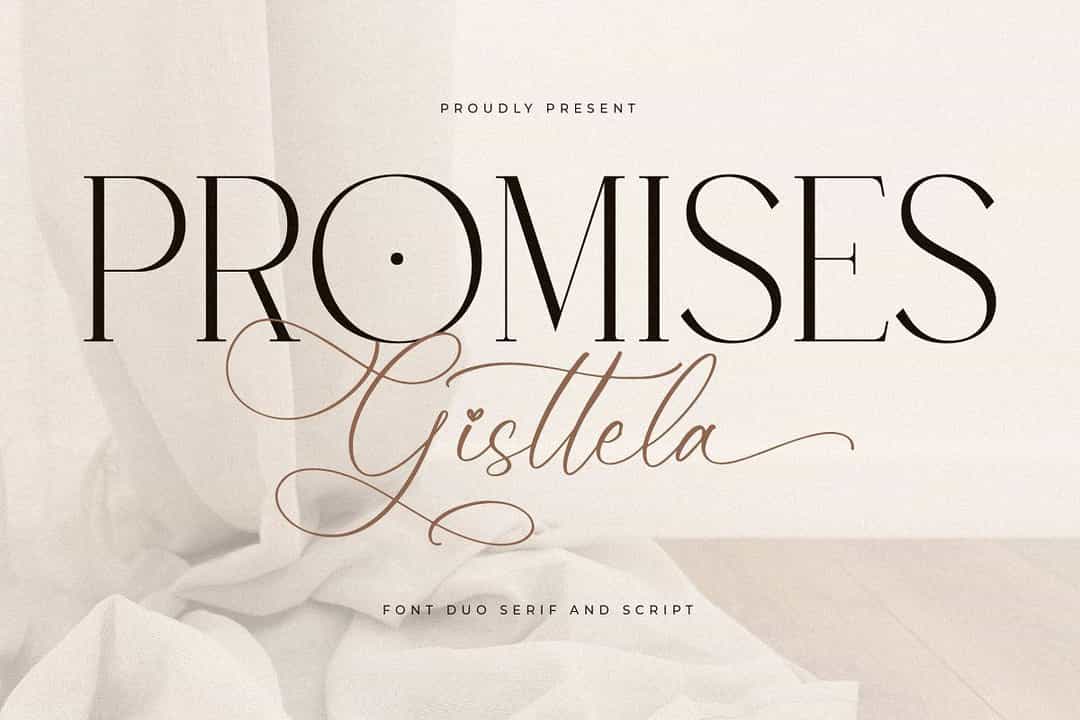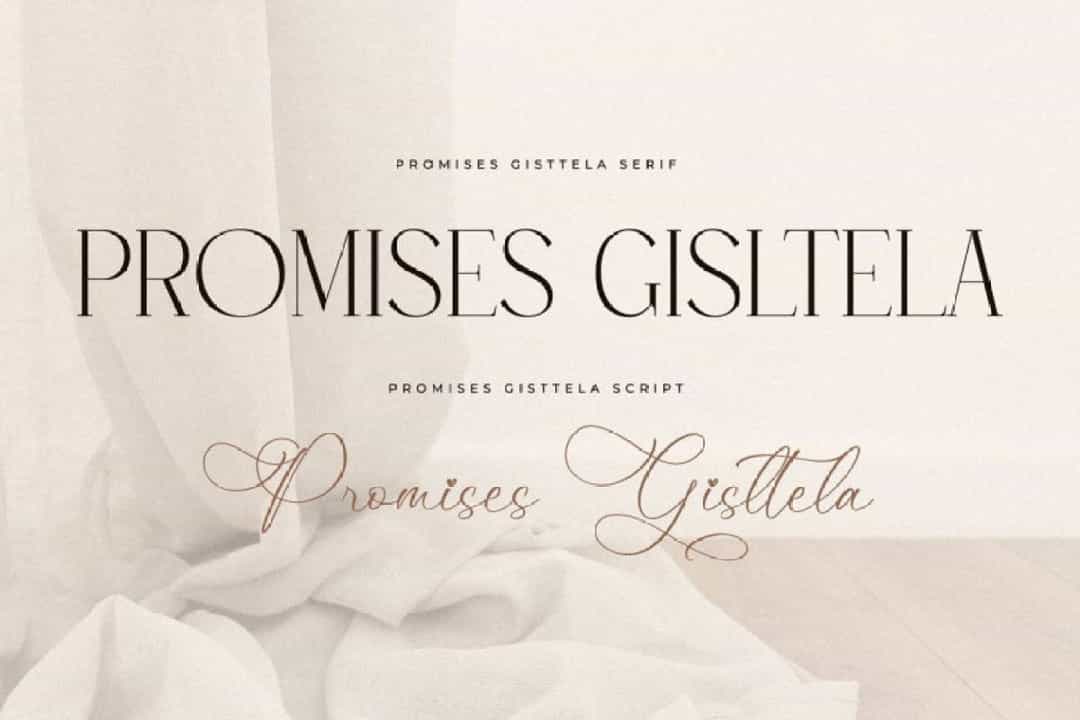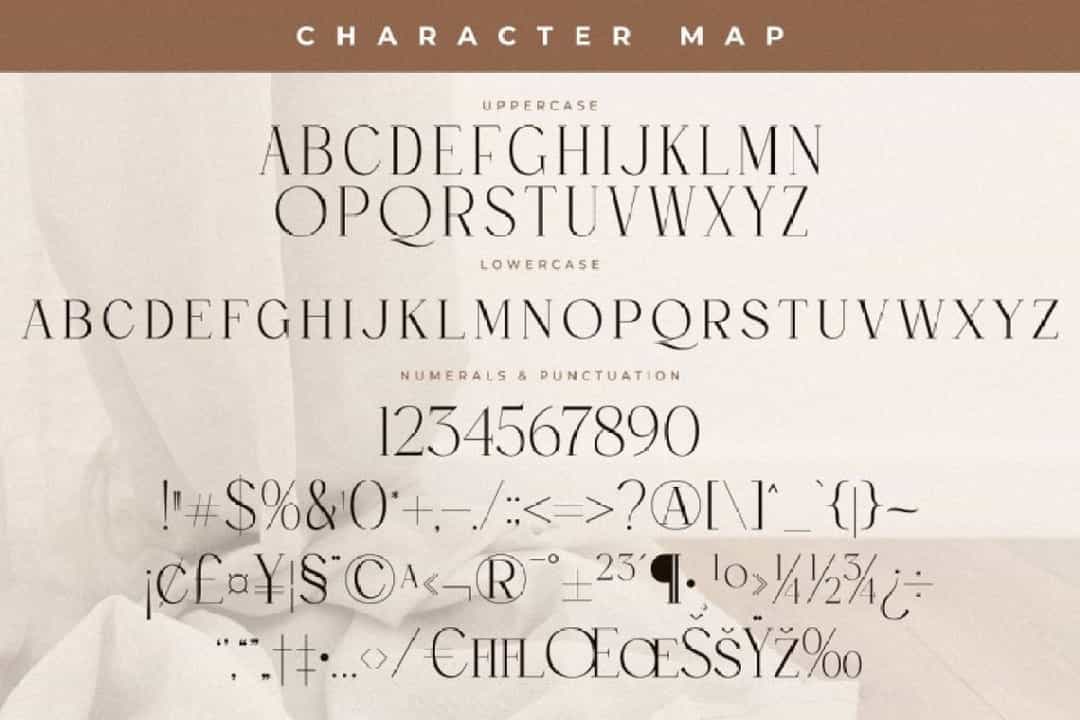
Promises Gisttela is a combination of serif and script fonts with distinctive styles and contemporary appearance. Perfect for creating classy logos, book or film title designs for titles in magazines as well as lettering quotes etc, Promises Gisttela makes an eye-catching statement!